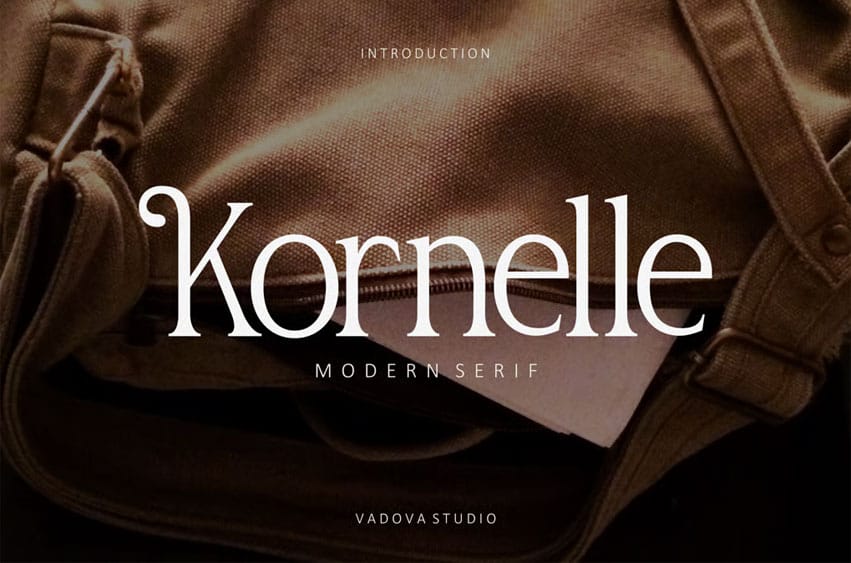
Kornelle Font Modern Serif Font is a high-contrast serif typeface with refined serifs, smooth transitions, and stylistic alternates, offering a luxurious and elegant feel. Designed for legibility and visual impact, it is ideal for editorial layouts, fashion branding, product packaging, lifestyle marketing, business cards, logo design, social media templates, wedding invitations, nature-themed graphics, magazine spreads, lookbooks, cosmetics ads, bakery packaging, and elegant signage.
The font blends modern form with timeless charm, making it suitable for soft minimal branding and sophisticated visual storytelling.
Use Case editorial layouts, fashion branding, boutique packaging, bakery logos, perfume labels, wedding invitations, lifestyle blogs, restaurant menus, luxury stationery, and skincare branding.